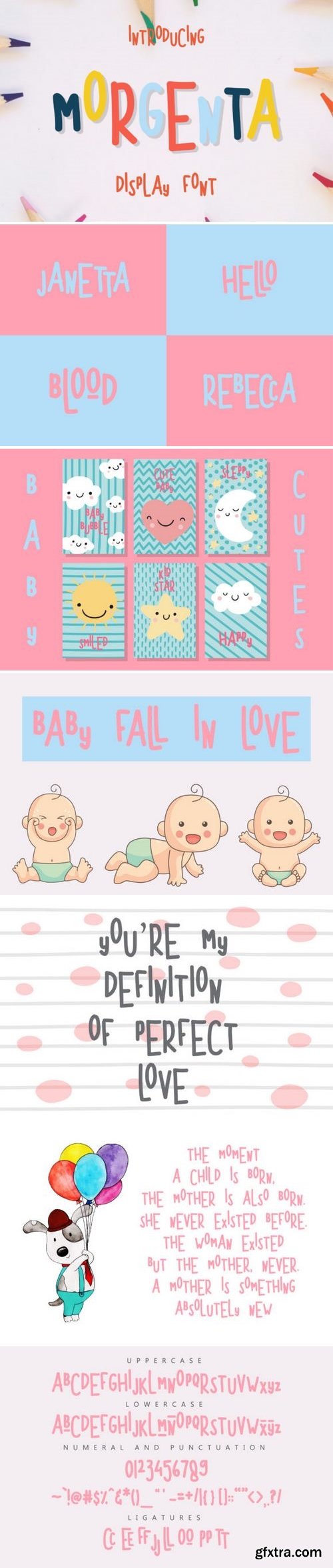
Introducing: Morgenta ! A sweet and simple hand-drawn font. Its bold and curvy characters can add a bunch of personality to any project. Morgenta can be used for personal or commercial projects, in logos, on items for purchase with unlimited sales, and can be turned into a web font (web font files are not included in the download).